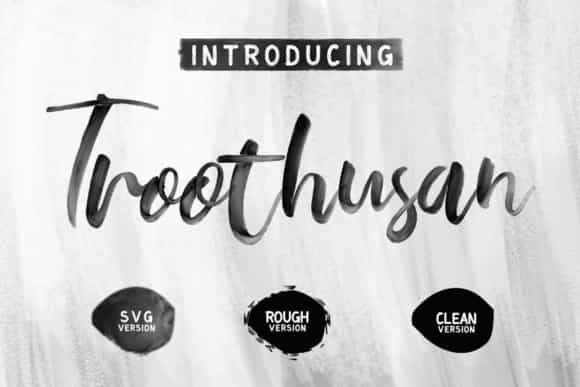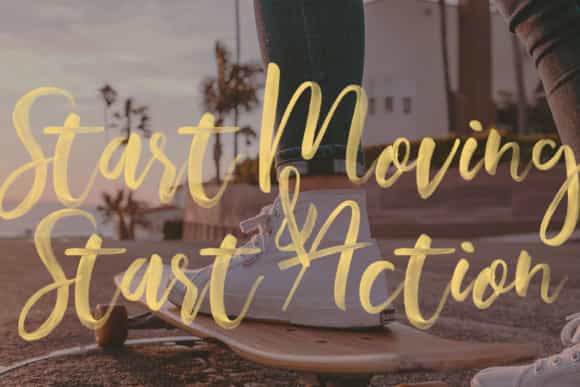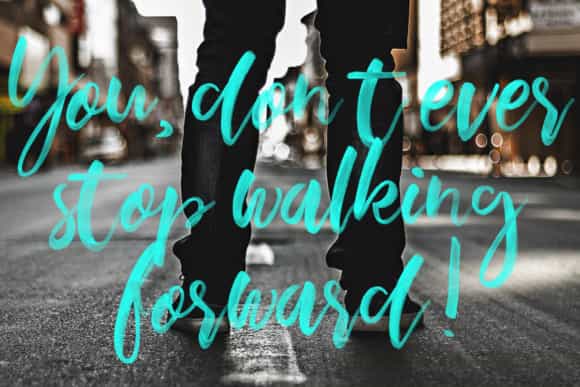
Troothusan Font – This is a modern brush svg typeface. If you want to find a brush style that is matched to your design then it is here. A great font that will be a perfect companion for professional designers. Troothusan Brush Font was created and distributed by rimbun bambu. Troothusan is a contemporary and eye-catching font with a bold style. Give it a try for you to see how it can enhance the authenticity of any design project.